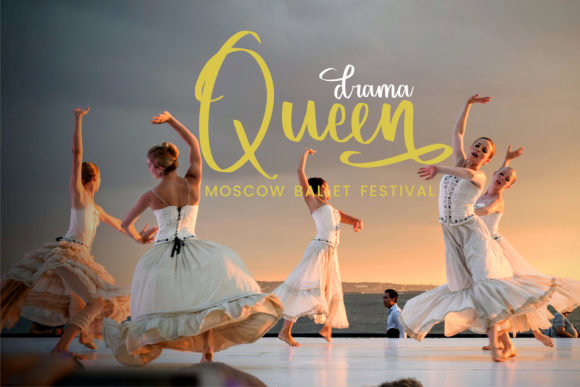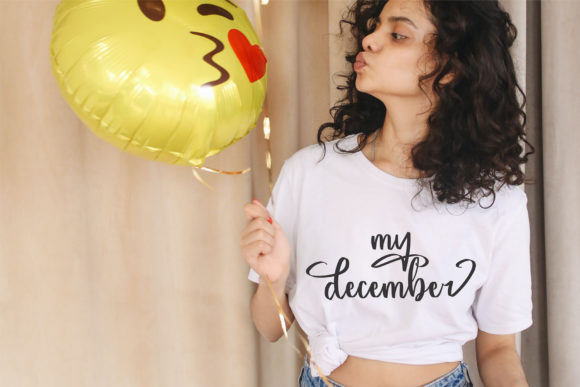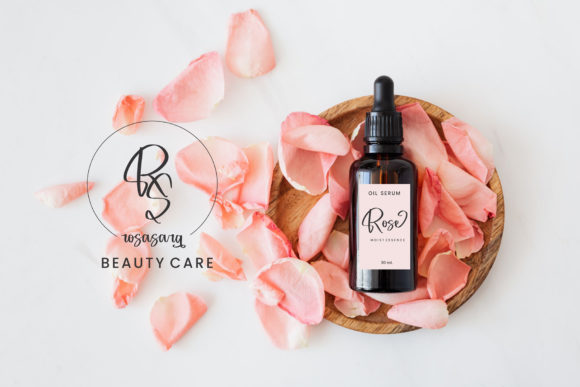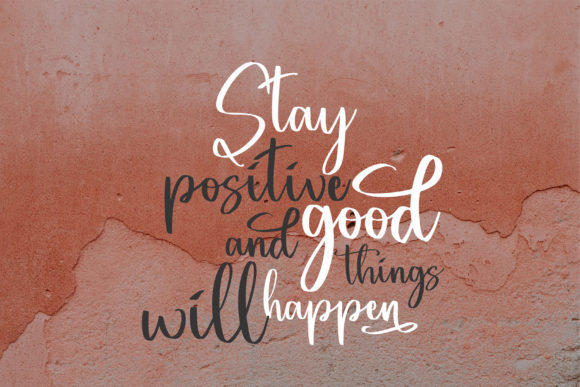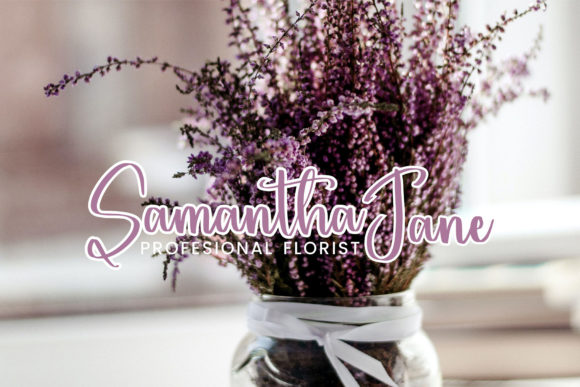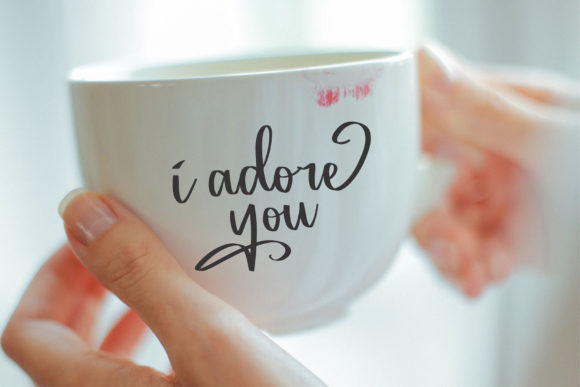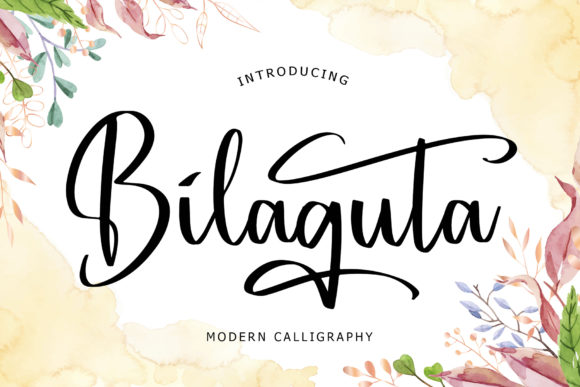
Bilaguta Font: Elevate Your Designs with a Touch of Modern Elegance
In the world of typography, a font can make or break a design. For designers and crafters looking to add a touch of sophistication and modern style to their projects, Bilaguta Font is an excellent choice. This beautiful handwritten font is perfect for a wide range of design applications, from branding and logos to wedding designs and social media posts.
What Makes Bilaguta Font Special?
Bilaguta Font stands out for its elegant and modern handwritten style. Its unique charm makes it an ideal choice for designers who want to add a touch of personality to their work. Whether you’re working on a branding project, creating a logo, or designing social media posts, Bilaguta Font can help you achieve a professional and polished look.
One of the key benefits of Bilaguta Font is its versatility. This font is perfect for a wide range of design projects, including:
- Branding projects: Create a lasting impression with a font that exudes elegance and sophistication.
- Logos: Make your logo stand out with a unique and memorable font.
- Wedding designs: Add a touch of romance and whimsy to your wedding designs.
- Social media posts: Elevate your social media presence with a font that’s both modern and stylish.
- Advertisements: Grab attention with a font that’s both eye-catching and sophisticated.
- Product packaging: Make your product stand out on store shelves with a font that’s both elegant and modern.
- Product designs: Add a touch of personality to your product designs.
- Labels: Create labels that are both functional and visually appealing.
- Photography: Add a touch of elegance to your photography with a beautiful font.
- Watermark: Protect your images with a font that’s both subtle and sophisticated.
- Invitations: Create invitations that are both stylish and memorable.
- Stationery: Elevate your stationery with a font that’s both modern and elegant.
Bilaguta Font is PUA (Private Use Area) encoded, which means you can access all of the glyphs and swashes with ease. This feature makes it easy to customize your designs and add a touch of personality to your work.
Why Choose Bilaguta Font?
So why choose Bilaguta Font for your design projects? Here are just a few reasons:
- Unique and modern style: Bilaguta Font has a unique and modern style that’s sure to make your designs stand out.
- Elegant and sophisticated: This font exudes elegance and sophistication, making it perfect for a wide range of design applications.
- Versatile: Bilaguta Font is perfect for a wide range of design projects, from branding and logos to wedding designs and social media posts.
- Easy to use: With PUA encoding, you can access all of the glyphs and swashes with ease.
In conclusion, Bilaguta Font is a beautiful handwritten font with a modern style that’s perfect for adding a touch of elegance and sophistication to any design project. Its versatility, unique style, and ease of use make it an excellent choice for designers and crafters looking to elevate their designs. Whether you’re working on a branding project, creating a logo, or designing social media posts, Bilaguta Font is a great choice.